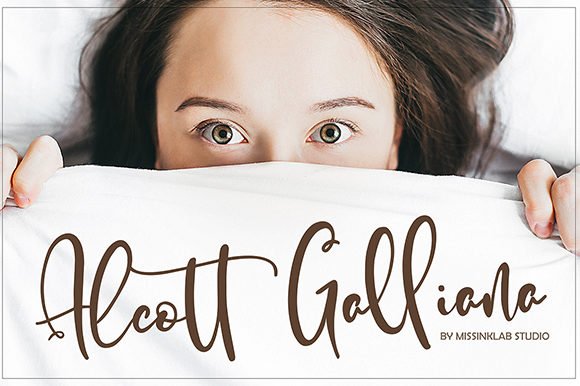
Get Ready to Unleash Your Creativity with Alcott Ghalliana Font
There’s something magical about discovering a new font that sparks your imagination and sets your creative juices flowing. For designers and writers alike, finding the perfect font can be a game-changer. It’s that moment when you stumble upon a beautiful, unique script that makes your work feel truly special – and that’s exactly what happens when you meet the Alcott Ghalliana Font.
This modern and light handwritten font is a treasure trove of creative possibilities, with its incredible swashes and lovely feel. Whether you’re designing a wedding invitation, a children’s book, or a social media campaign, the Alcott Ghalliana Font is the perfect companion to help you bring your vision to life.
- Unique Characteristics: The Alcott Ghalliana Font features a beautiful, elegant script with a touch of vintage charm, making it perfect for wedding invitations, formal events, and other special occasions
Alcott Ghalliana Font Review
The Alcott Ghalliana Font is a beautifully crafted script font that exudes elegance and sophistication. I was immediately drawn to its whimsical charm and the way it seems to dance across the page.
- Delicate, flowing lines that evoke a sense of romance and luxury
- Perfect for titles, quotes, and other short-form text where a touch of elegance is needed
- Excellent for branding and marketing materials, particularly in the fashion and lifestyle industries
- Supports a wide range of languages, making it a versatile choice for global applications
- May be difficult to read in smaller sizes due to the intricate details
- Not ideal for body text, as it can be slow to read and may cause eye strain
- Limited support for numbers and punctuation, which can be a challenge in certain applications
Overall, the Alcott Ghalliana Font is a stunning addition to any designer’s toolkit. While it may have some limitations, its unique charm and versatility make it a valuable choice for the right projects. With careful application, this font can add a touch of magic to your designs.
For best results, use the Alcott Ghalliana Font for headings and titles, and a clear sans-serif font for body text.
For optimal results, use the Alcott Ghalliana Font for headings, titles, and decorative text.
Use the Alcott Ghalliana Font sparingly to add visual interest and emphasis to your text.
The Alcott Ghalliana Font is ideal for:
1. Creating elegant invitations and event materials.
2. Designing luxury branding and marketing materials.
3. Adding a touch of sophistication to digital presentations and documents.